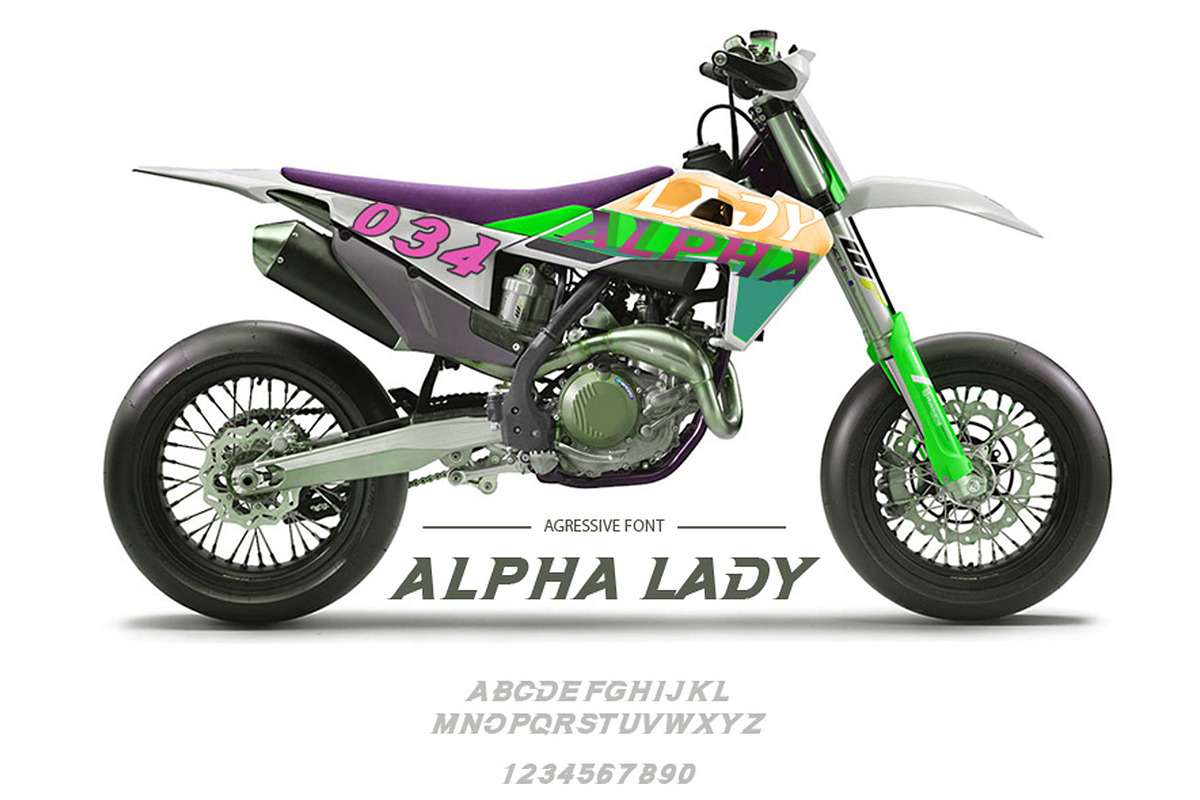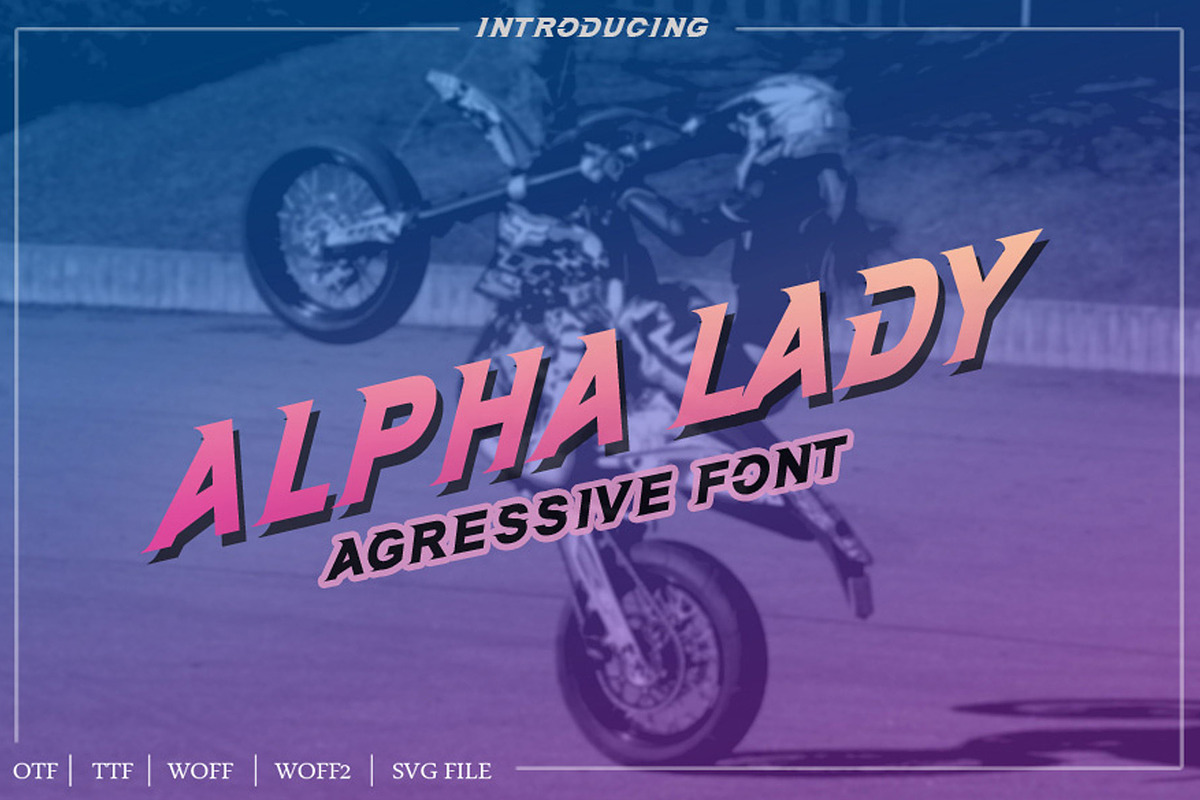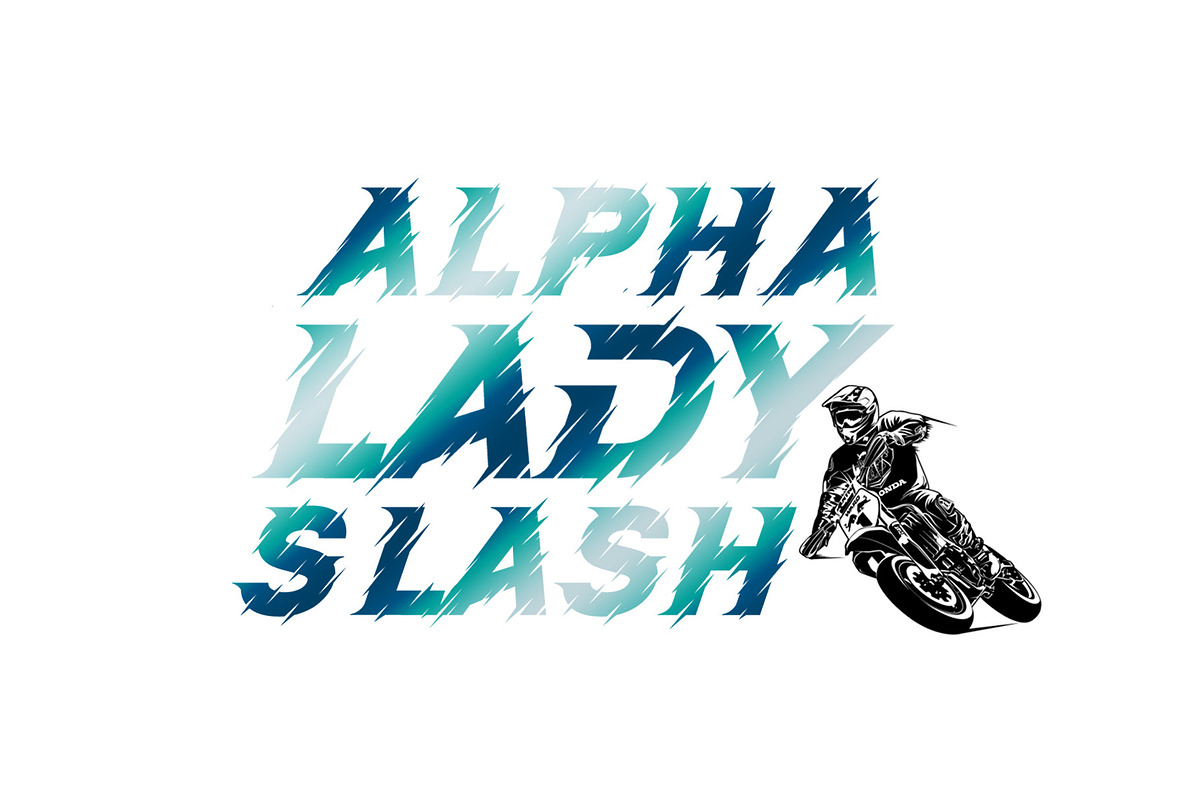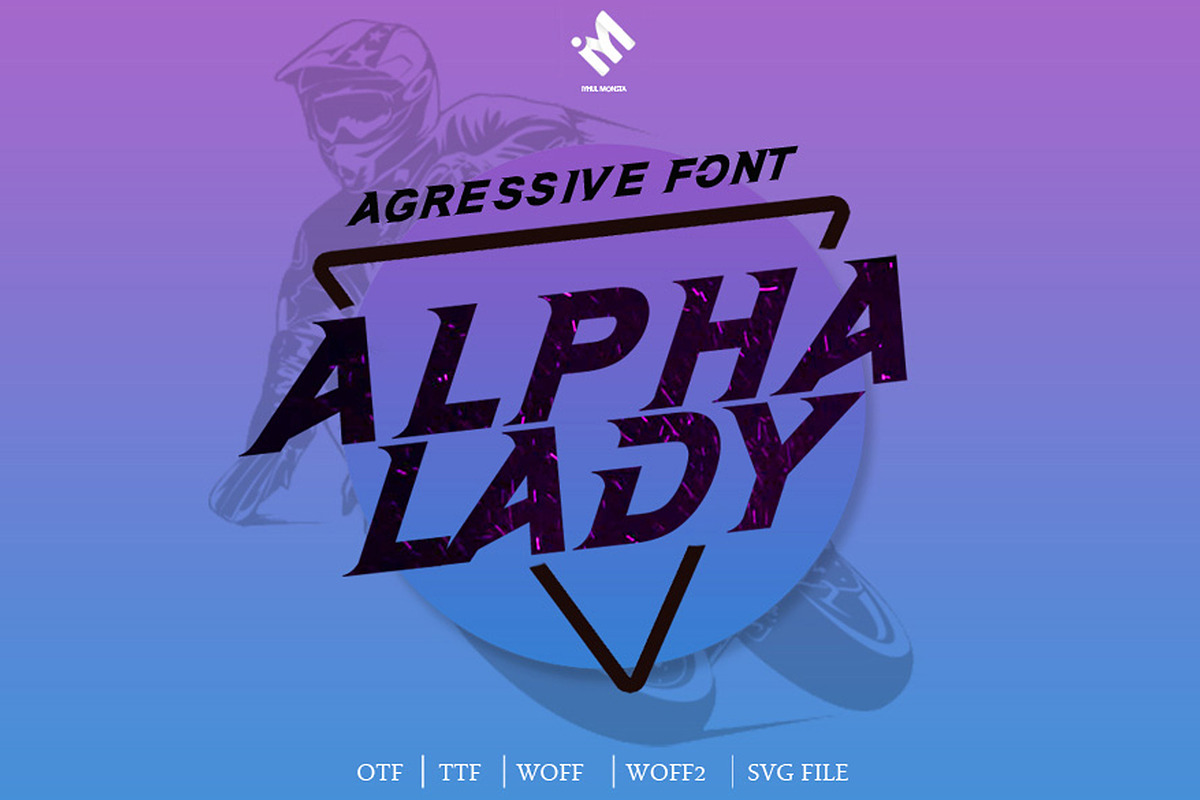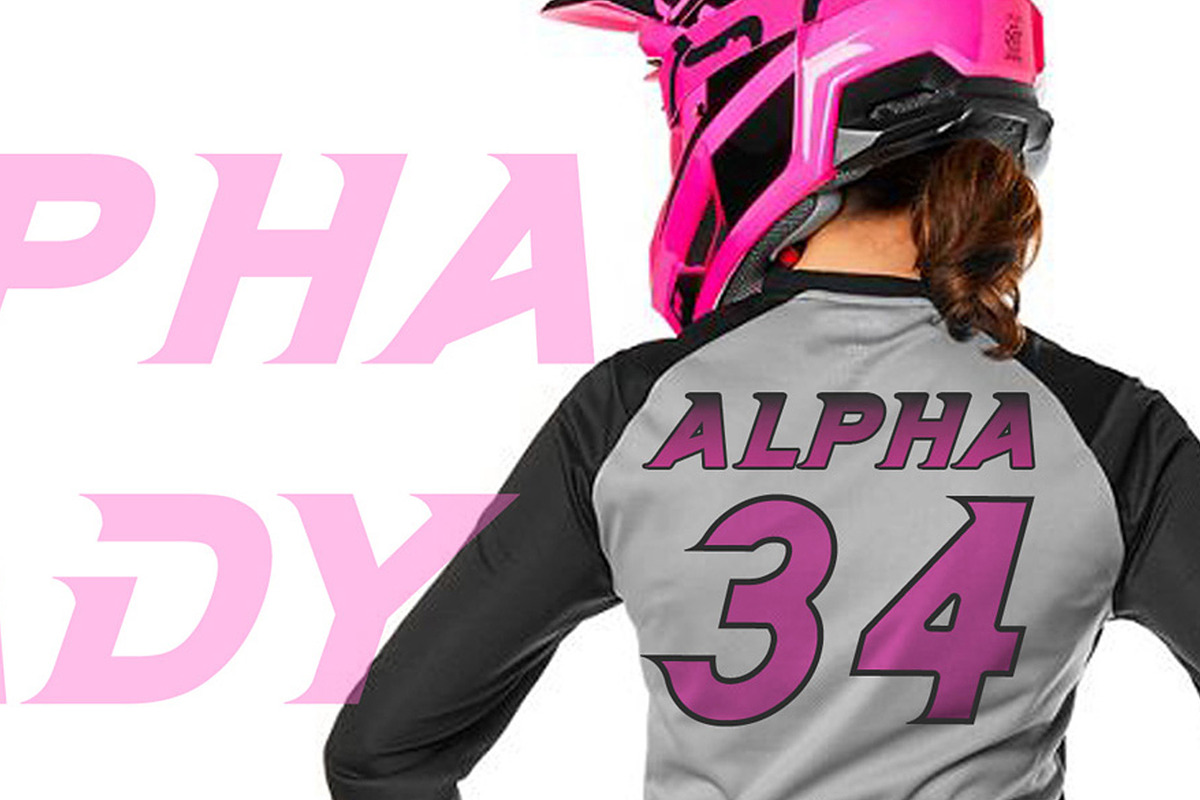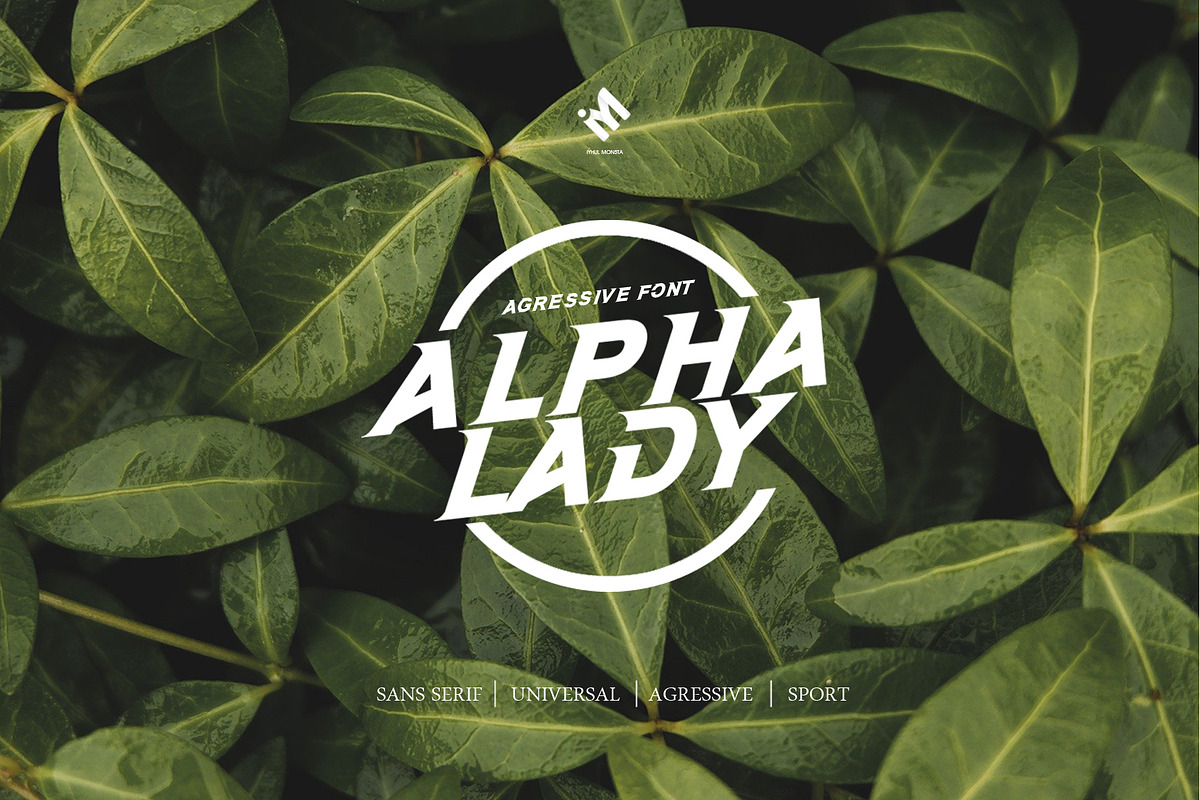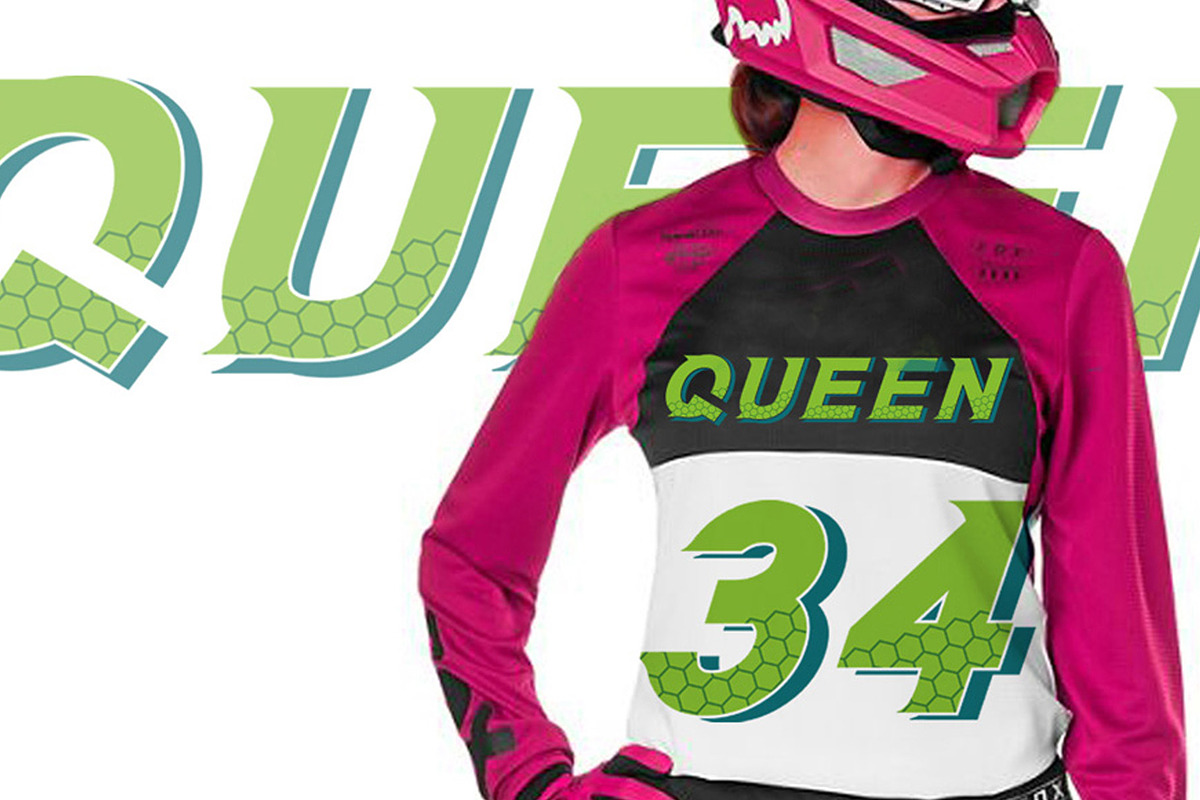
Alpha lady
Alpha lady is a stylish and aggressive slab serif font. It has clean, italic, and aggressive characters that can elevate the look of any creation!. Use it for any design project that requires a charming appearance! Alpha lady Features : Alpha lady Reguler, Alpha lady Slash and Alpha lady Hollow : OTF & TTF,Web Font (WOFF). Thank You :):)